Brand Typography: How To Choose and Find The Right Fonts For Your Brands
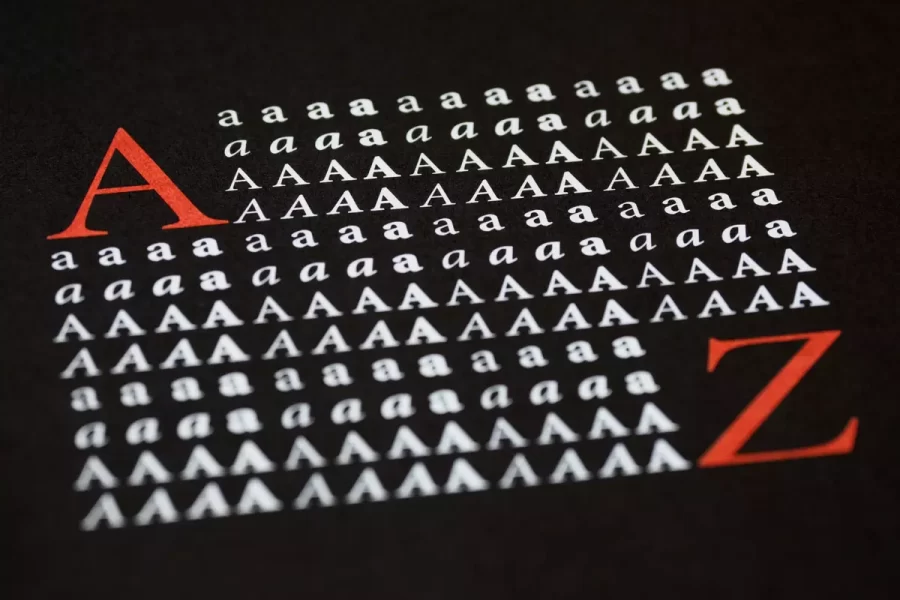
The right typography can increase brand recognition by contributing to its personality and better user perception. Many studies found that unappealing fonts tend to reflect badly on the readers’ emotional response to content. Fonts influence your readers’ subconscious perception of your brand.
This is why selecting brand typography that conveys your business’s personality and values is one of the key elements of visual branding. The unity between the right font and design will not only boost your brand but also help you visualize your message to your customers.
What Is Brand Typography?
Brand typography is a visual element of the brand style guide, or a brand book, that arranges your business’s written copy in a legible way and aligns your messaging with your brand personality.
Brand typography is not quite the same as brand font or typeface, although they are all closely related.
Typography is the collection of traits that support the design, brand voice, and personality of a business on all digital and traditional channels. But fonts are the element of the typography itself.
How Font Can Boost Your Brand Identity
Even though you may not notice it, typography comprises a large part of a brand identity.
The aspects of a brand such as a logo, packaging, emails, documents, website, and social media imagery include a good amount of typography.
So, being such an important part of a brand – how DOES typography boost the brand?
Typography gives the brand a meaning: Typefaces and fonts convey the values and the tone of your brand just like your colors do. Typography has a diverse set of connotations and presents What your brand stands for clean, modern, and simple sans-serif fonts reverberate with the audience differently than old-fashioned serifs. Monospaced fonts have a technological feel while blackletter while script fonts are more personal. That’s why it is important to choose typography wisely AND understand why you’re using it.
Typography defines the way people experience your brand: Your customers are seeing your brand’s messages on TV, in online ads, and in retail stores and read about you online and in the press. They experience your brand through words and branding is, very much, a sum of experiences your customers have with your business. Positive experiences form positive brand connotations. Typographical mistakes such as small fonts on a website – one of the main web users’ complaints – lead to bad brand experiences.
It changes users’ perception and builds brand recognition: Typography and fonts affect the way your audience sees and remembers your brand because they are a large part of your visual identity. A unique typeface is instantly recognizable – think of widely admired brands like Coca-Cola or Disney that have even created and registered their own typeface as a way of making it a part of their identity. Think about your own business and audit typography across all touchpoints by considering many things.
Before you adopt typography, though, you should understand these stages in the process of choosing a font.
1. Define Your Brand’s Personality
Brand personality is a cornerstone of a brand identity that also boosts brand awareness.
It is a collection of traits that your customers relate to and associate you with and remember you for.
Brand fonts and typography, much like other brand components, must be aligned with your brand’s personality. You may have already defined your brand’s personality in concrete terms, but if not – invest time into thinking about how you would like your brand to be perceived.
Brand owners, managers, decision-makers, and very much everyone comprising your team should think in terms of the main types of brand personalities, or brand dimensions, and their common traits.
2. Understand The Personality Of Every Typeface
Only, of course – fonts and typographies have their own personalities and characters, as was discussed earlier. So you need to know these as well.
Font psychology is understanding that every typeface has its own unique traits. They come in categories which are classifications for better identifying and choosing fonts.
The basic font categories and their traits are:
Serif: Traditional, classical, reliable. For brands that convey a sense of respectability and age-long class.
Some of the Serif fonts are:
- Times New Roman
- Garamond
- Bodoni
- Palatino
Sans-serif: Minimal, clean, contemporary. For brands that evoke a sense of cleanliness and modern directness.
Some of the Sans-serif fonts are:
- Droid Sans
- Helvetica
- Verdana
- Futura
Script: Unique, elegant, distinctive. For brands that emphasize their special purpose.
Some of the Script fonts are:
- Allura
- Alex Brush
- Pacifico
- Windsong
Handwritten: Arty, informal, fun. For brands that present themselves as playful and approachable.
A primary font: The default typeface which communicates your brand’s identity, values, and personality.
A secondary font: A typeface that complements the primary font and supports the typographic design system.
A tertiary font: Font your brand uses for accents.
Each of these fonts has a specific purpose to serve. They also play a specific role in the hierarchy of your design system. Each typeface should fulfill roles like Title, Subtitles, Copy, CTAs, Quotes, and Product packaging.